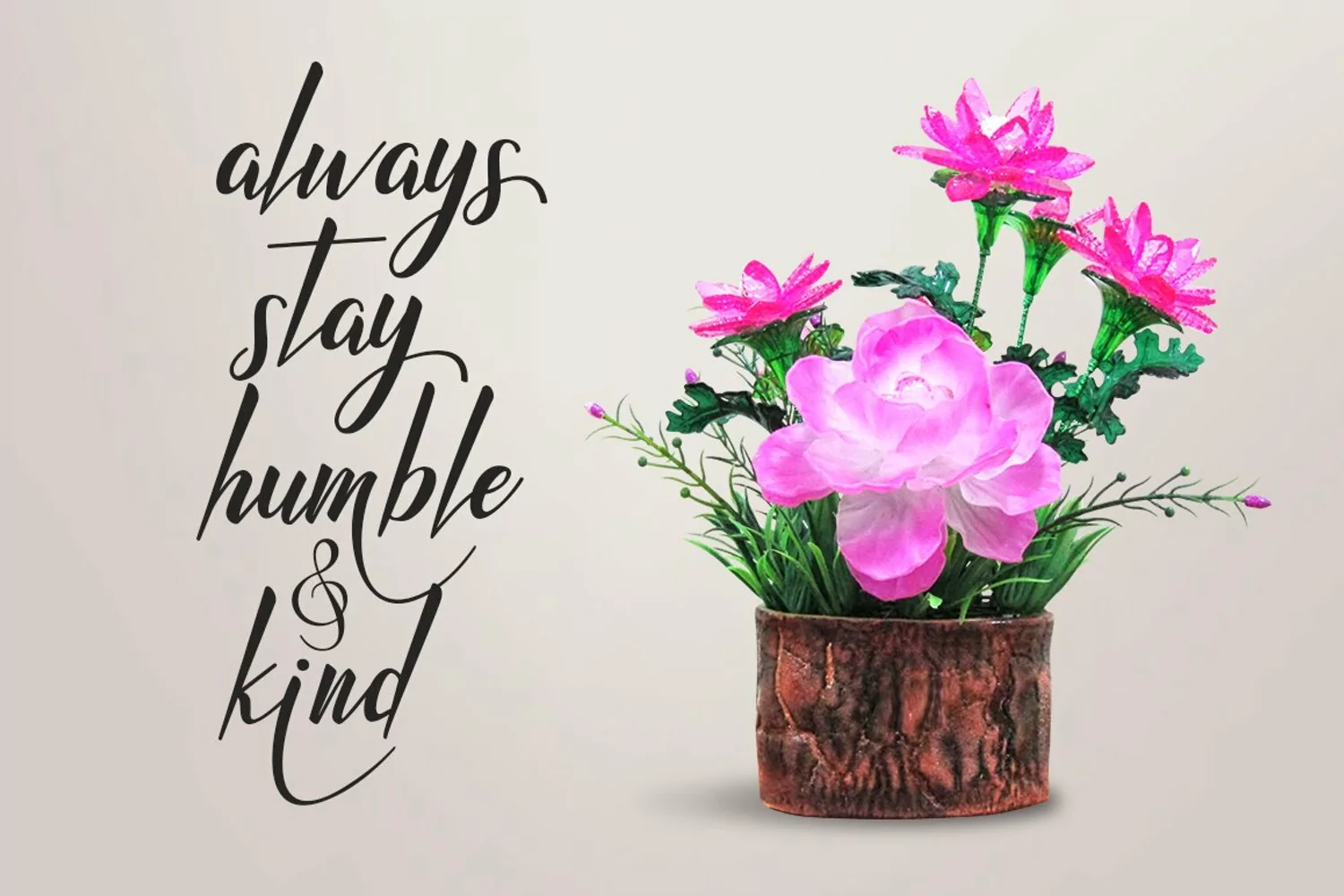
Rafifi Script is a beautiful handmade script font, modern calligraphy & fresh typeface. Rafifi Script suitable for logo, branding, invitation, greeting card, signature, poster and any design that you create.
Rafifi Script Features:
• Uppercase, Lowercase, Numerals, etc
• Stylistic alternates with number after character
• PUA Unicode (specially coded fonts)
• Multilanguages
• Alternate after letter with number (1, 2, 3 or 4)